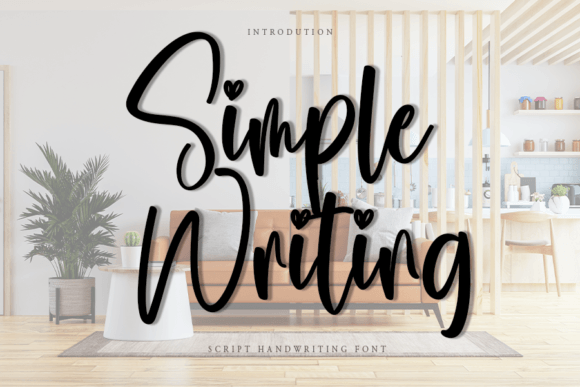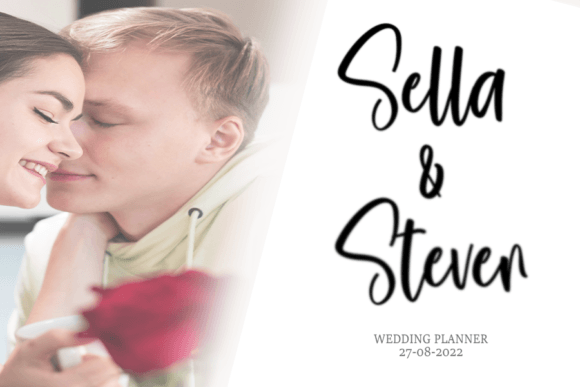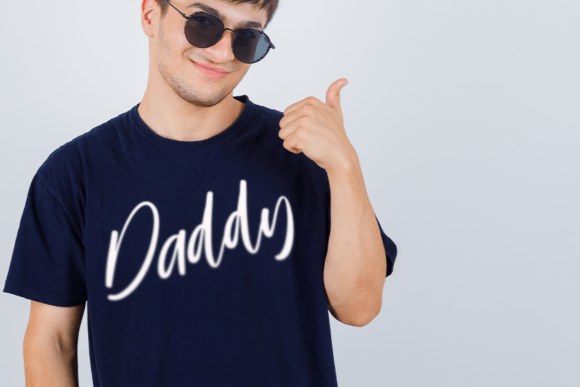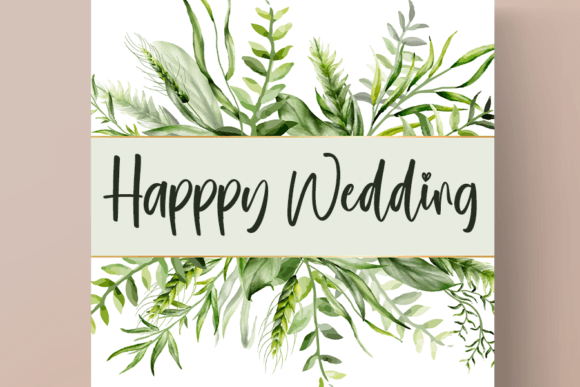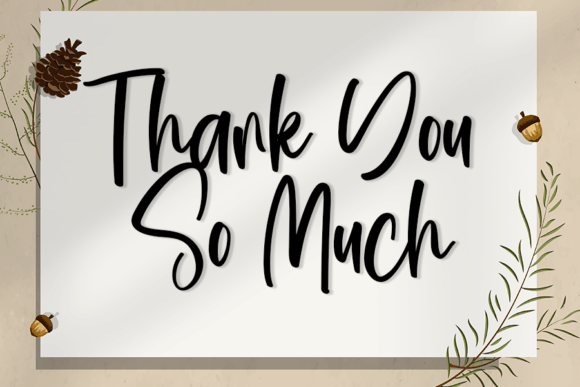
Simple Writing Font
About Simple Writing Font
Simple Writing Font is a gorgeous handwritten script that combines elegance with creativity. With its flowing, curvy lines and graceful appearance, this font instantly elevates any project. Because of its stylish design, Simple Writing Font is suitable for personal crafts, branding, packaging, magazines, and digital content, making it a versatile tool for all designers.
A Gorgeous Handwritten Typeface with Elegance
Handwritten fonts add personality and charm to creative work, and Simple Writing Font brings this to life with a refined, sweet style. Its natural flow feels approachable, while its curvy details add sophistication. Moreover, it maintains clarity across sizes, so your text remains readable while still looking stylish. As a result, it adapts well to casual layouts as well as professional projects.
Perfect Typeface for Packaging and Branding
When designing product packaging or branding materials, Simple Writing Font is a smart choice. For example, it can give boutique packaging or luxury labels a unique, handcrafted feel. In addition, logos and business cards gain warmth and professionalism when designed with this handwritten script. Because of its elegance, brands using Simple Writing Font are able to leave a lasting impression.
A Script Typeface for Magazines and Weddings
Magazines, wedding stationery, and event invitations benefit from the graceful style of Simple Writing Font. Its elegant flow makes wedding invitations feel romantic and timeless. Likewise, magazine covers and editorial spreads gain a polished touch. Furthermore, it works beautifully for thank-you notes, seasonal greetings, and personal stationery, ensuring that every message feels heartfelt.
Flexible Across Print and Digital Projects
Another advantage of Simple WritingFont is its adaptability across mediums. In print, it shines on brochures, posters, flyers, and merchandise. Digitally, it enhances websites, blogs, presentations, and social media posts. Since it pairs well with clean sans serif fonts, designers can create layouts that are modern, balanced, and easy to read.